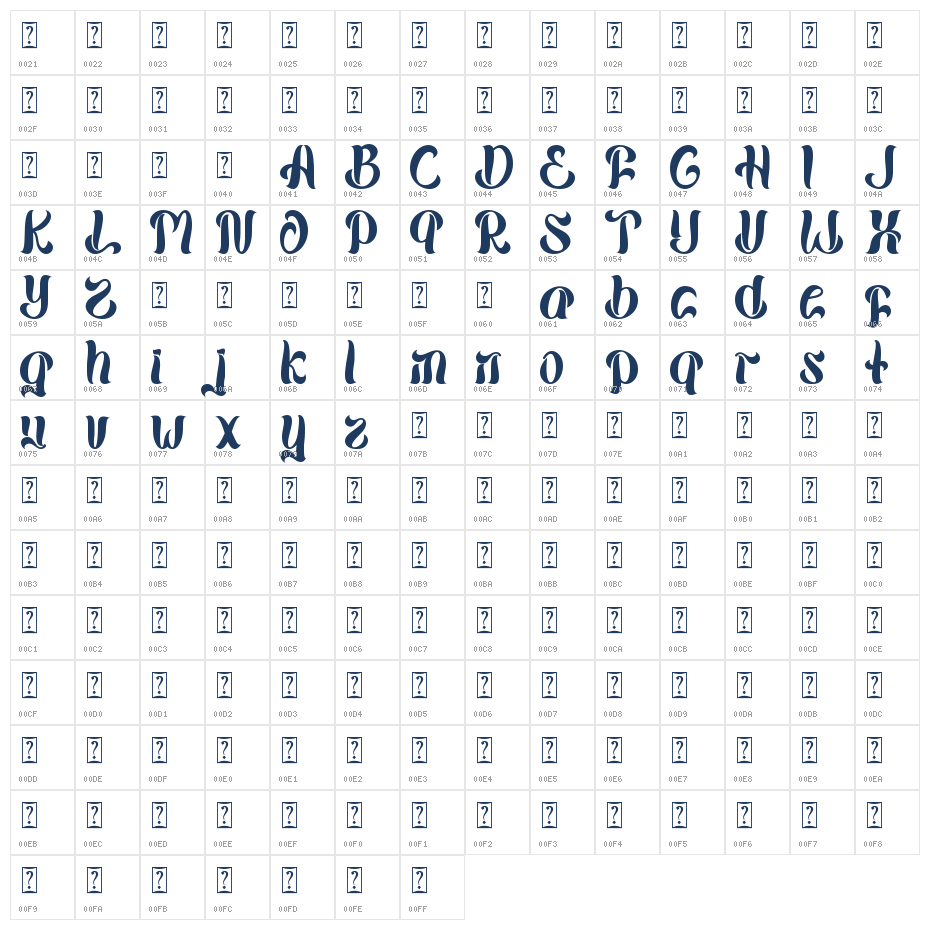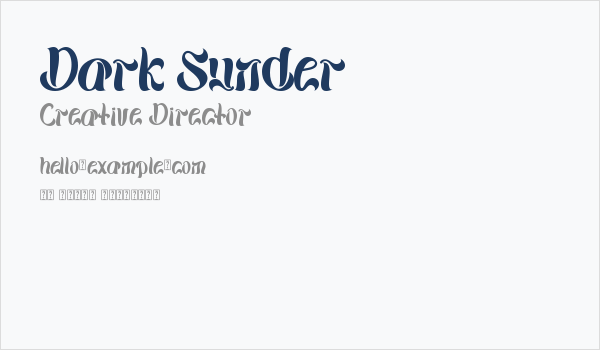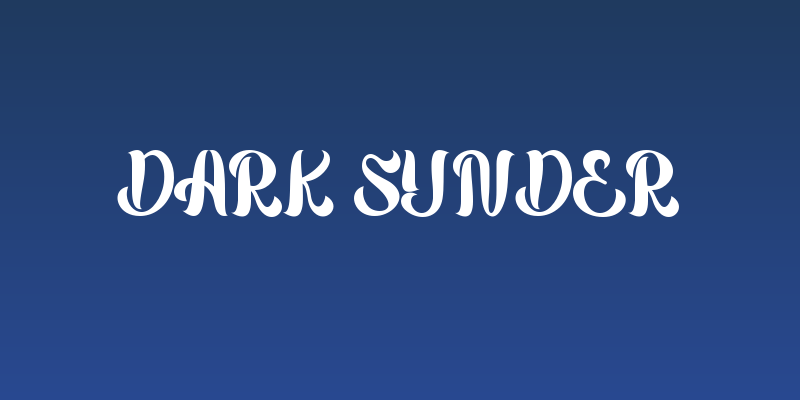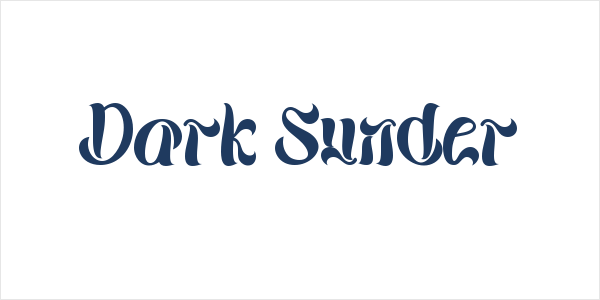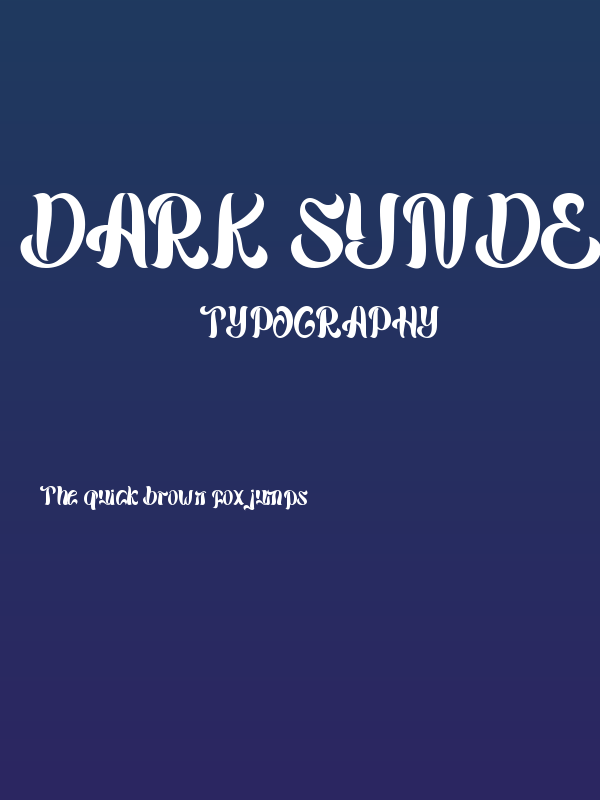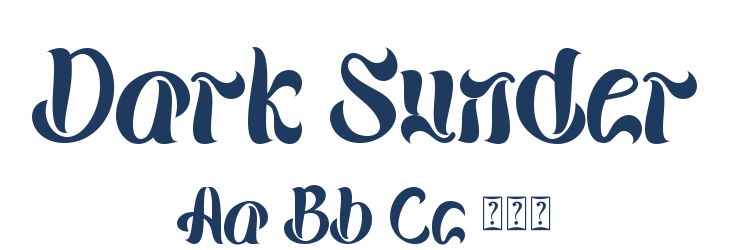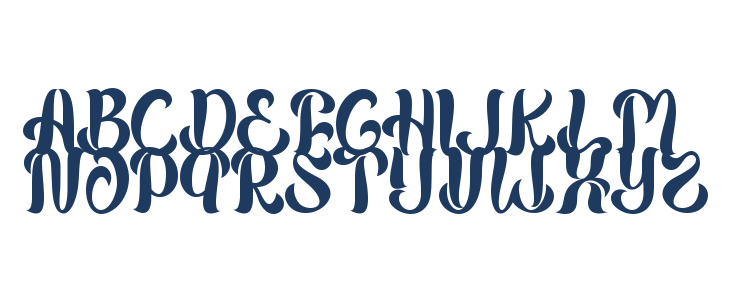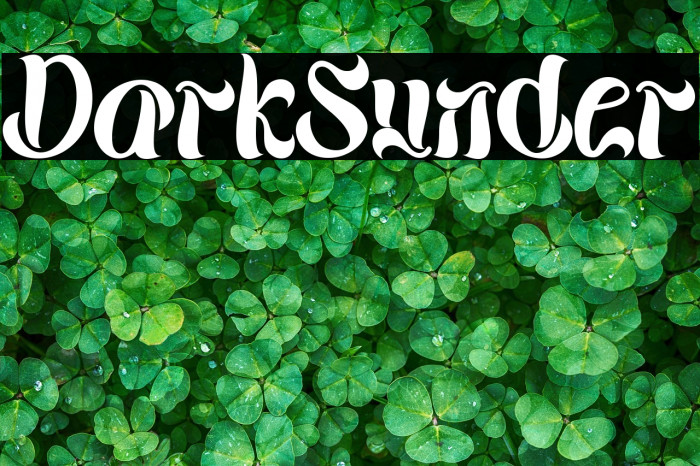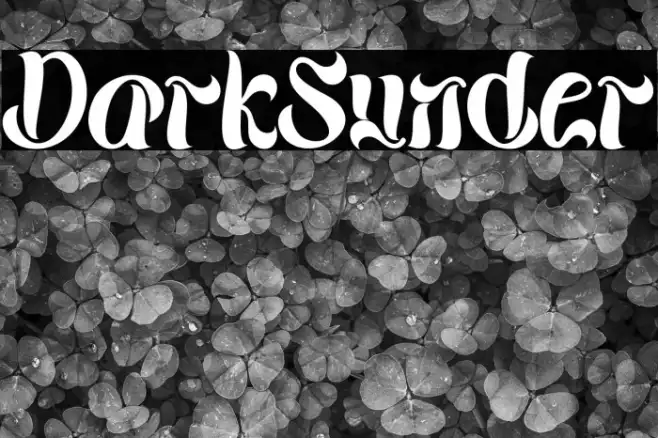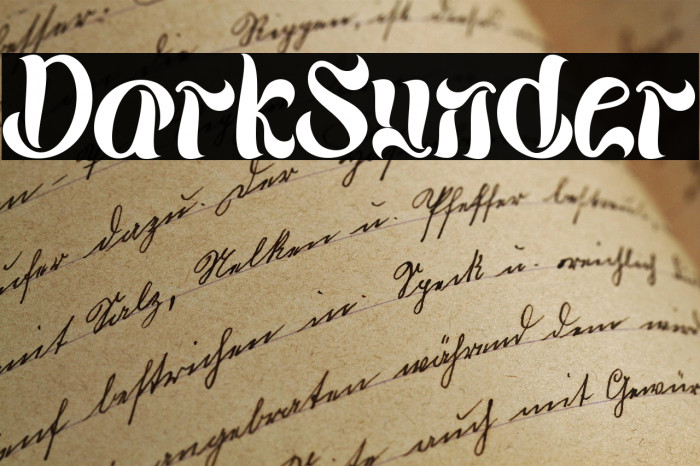
Dark Sunder Font
Dark Sunder Description
A decorative, playful script font with a whimsical, hand-drawn style featuring exaggerated curves and flourishes.
Dark Sunder
| Overall Style | Whimsical, Hand-drawn, Decorative |
| Use Case | Headlines, Logos, Invitations, Decorative Text |